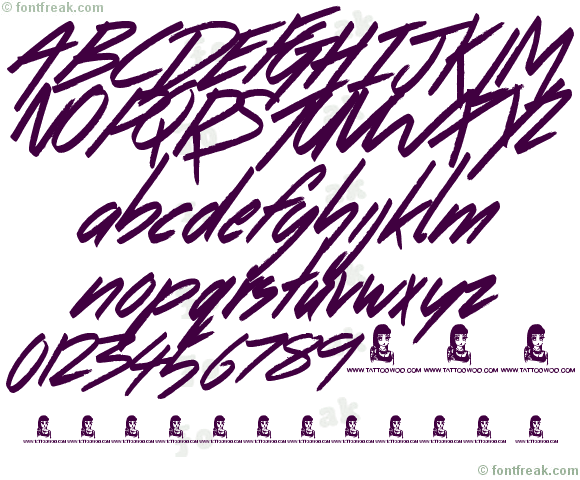
Dancing on the Beach
About Dancing on the Beach
Dancing on the Beach, designed by Jonathan S. Harris, is a captivating script font that exudes a lively and carefree vibe reminiscent of sunny shores and joyful moments. This font belongs to the script category, characterized by its fluid, cursive style that mimics the elegance of handwritten letters. The strokes are varied in weight, providing a dynamic contrast that enhances its visual appeal. The spacing is thoughtfully arranged to ensure readability while maintaining a playful flow, making it an ideal choice for various creative projects.
This font shines in specific use cases such as wedding invitations, where its romantic style can encapsulate the joy of the occasion. It also works wonderfully for summer event flyers, capturing the essence of beach parties or music festivals. Restaurant menus, particularly for coastal or tropical-themed establishments, can benefit from its inviting appearance, enhancing the dining experience. In addition, Dancing on the Beach makes for eye-catching branding materials for small businesses, especially those in the hospitality or creative sectors, conveying a sense of warmth and friendliness.
What sets Dancing on the Beach apart is its ability to evoke emotion and convey a sense of joy, perfect for projects that seek to capture the essence of fun and relaxation. Its unique character and flair make it a standout choice for anyone looking to infuse their designs with a sense of life and energy.